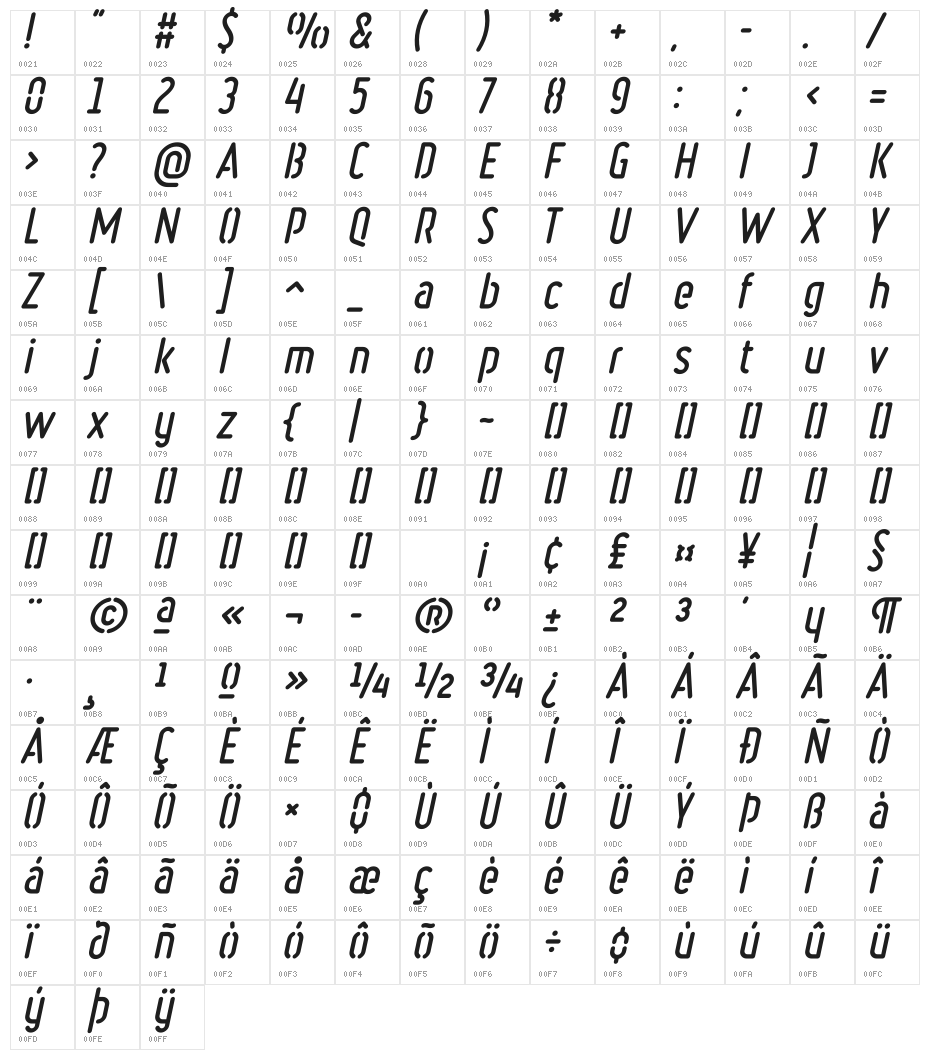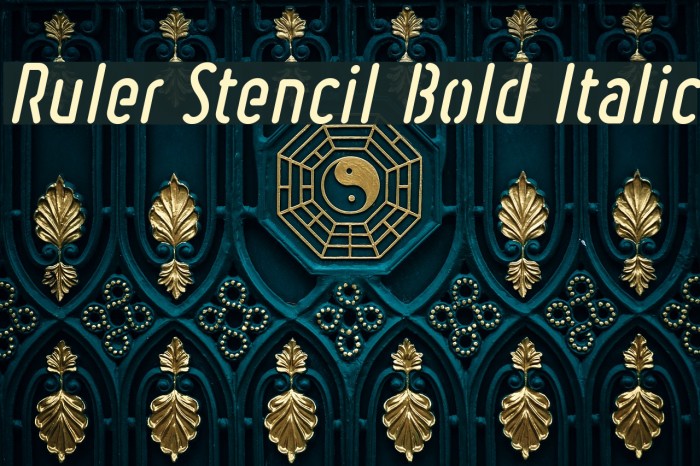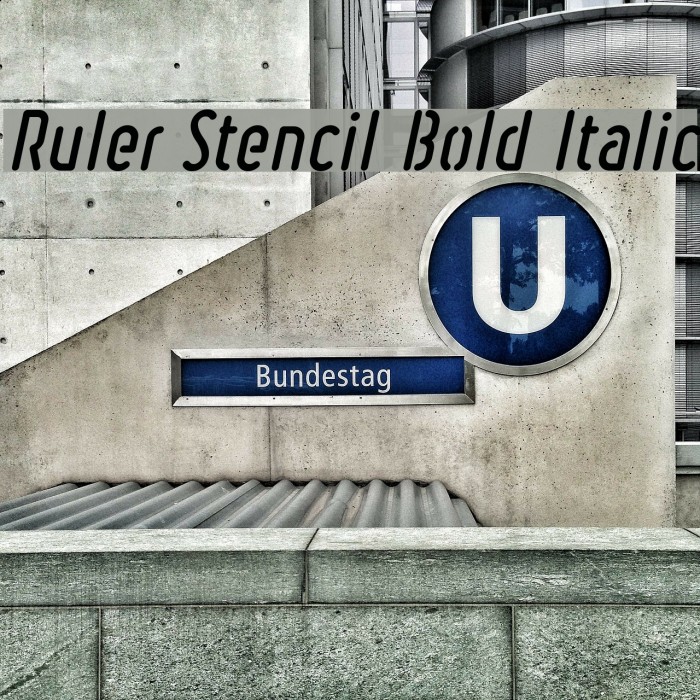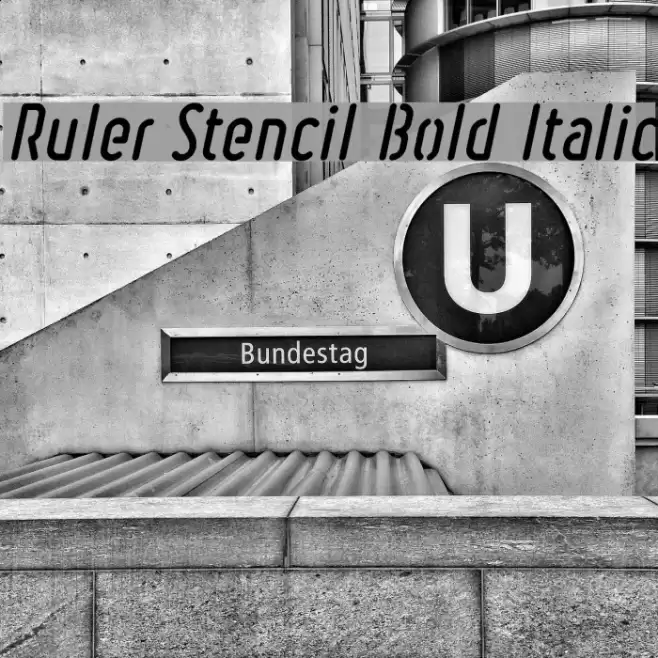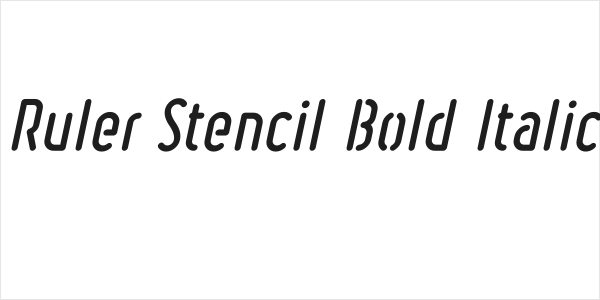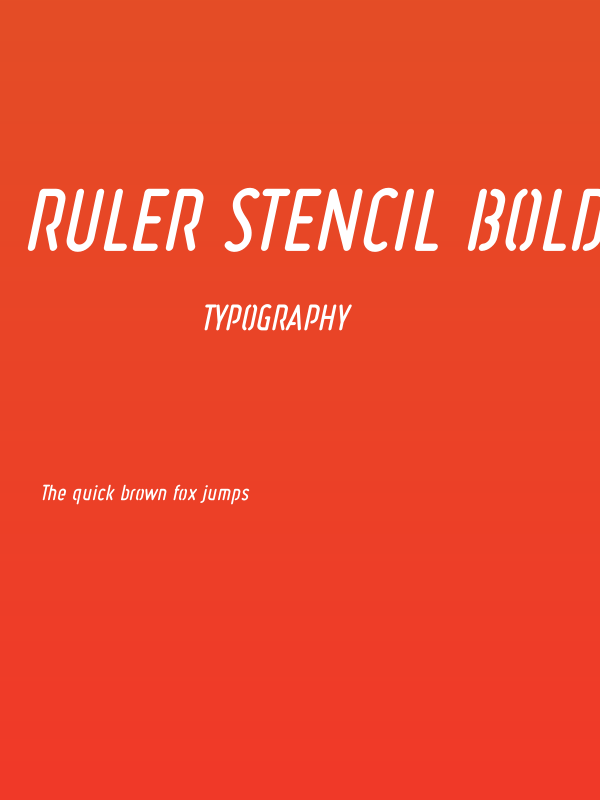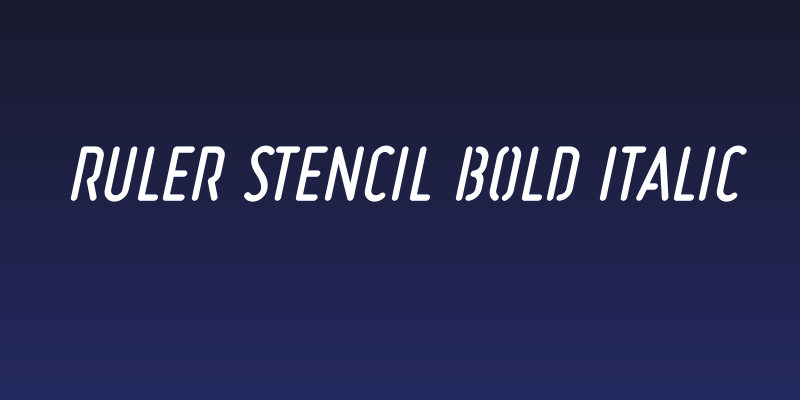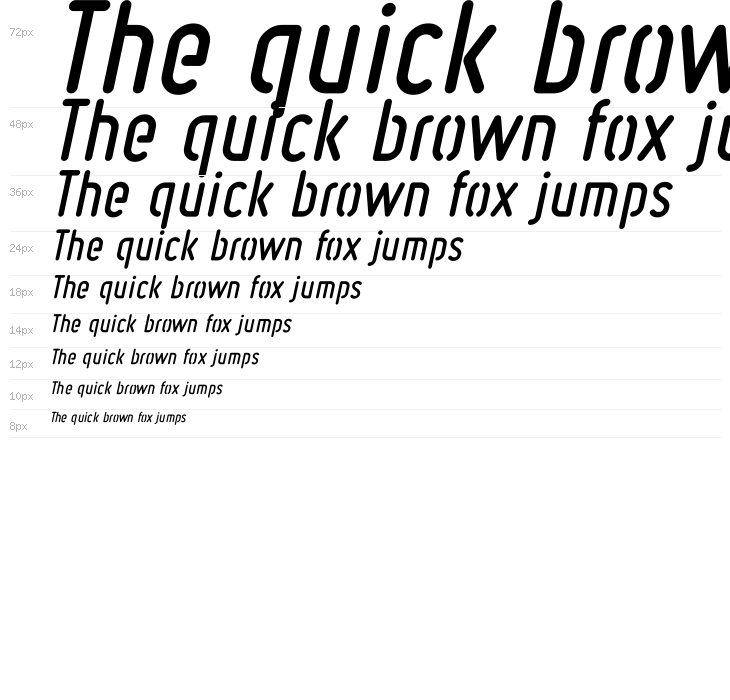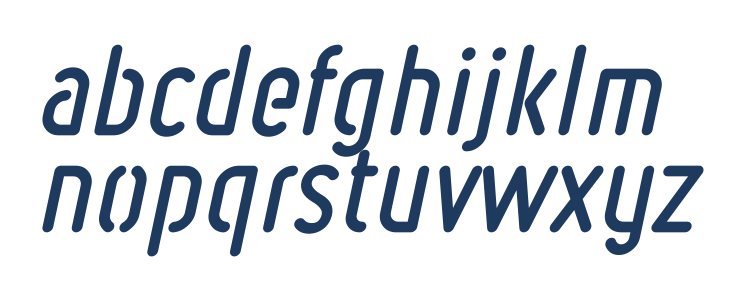
Ruler Stencil Bold Italic Font
Ruler Stencil Bold Italic Description
This font features a bold and italicized style with a distinctive stencil design. The characters are crafted with a modern, sleek appearance, incorporating rounded edges and a slight slant that adds a dynamic feel. The stencil gaps are strategically placed, giving it an industrial and contemporary look. The uppercase and lowercase letters maintain a consistent style, while the numerals and special characters are designed to complement the overall aesthetic. This font is both eye-catching and functional, suitable for a variety of design applications.
| Use Case | Logos, Headlines, Signage |
| Proposed Projects | Ideal for branding, packaging, signage, and poster design where a modern and industrial look is desired. |